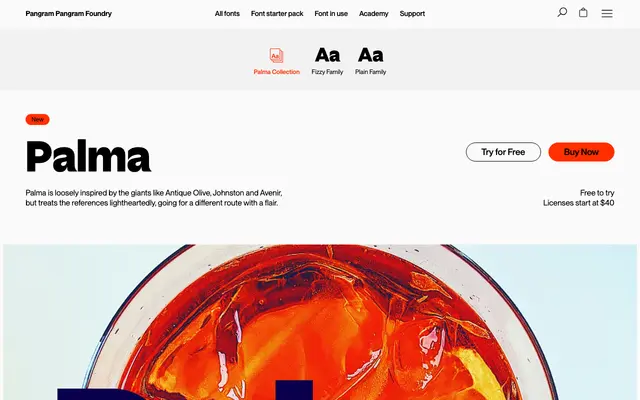
Paloma
Pangram Foundry · Mat Desjardins, Alex Slobzheninov, Francesca Bolognini
Paloma specimen from Pangram Foundry
A 28-style dual geo-humanist sans by Mat Desjardins, with a humanist Plain cut and a tighter, more geometric Fizzy cut.
A dual geo-humanist sans system by Mat Desjardins, with Alex Slobzheninov and Francesca Bolognini credited on the project. The 28-style family splits into two subfamilies: Plain, with open shapes, natural letterforms and balanced proportions for reading-comfort settings, and Fizzy, which tightens spacing, geometricises the shapes and crisps the details for large-size display. Each subfamily runs seven weights with italics, plus variable cuts. Pangram describe it as loosely inspired by Antique Olive, Johnston and Avenir, but treating those references lightheartedly. Useful where a brand needs both a comfortable text voice and a punchier display sibling without leaving the family.
Pangram tags it Display, Expressive, Humanist, Italics, Sans Serif, Variable. The family carries two subfamilies, Plain and Fizzy, that share a skeleton but split between humanist body settings and tighter geometric display cuts.